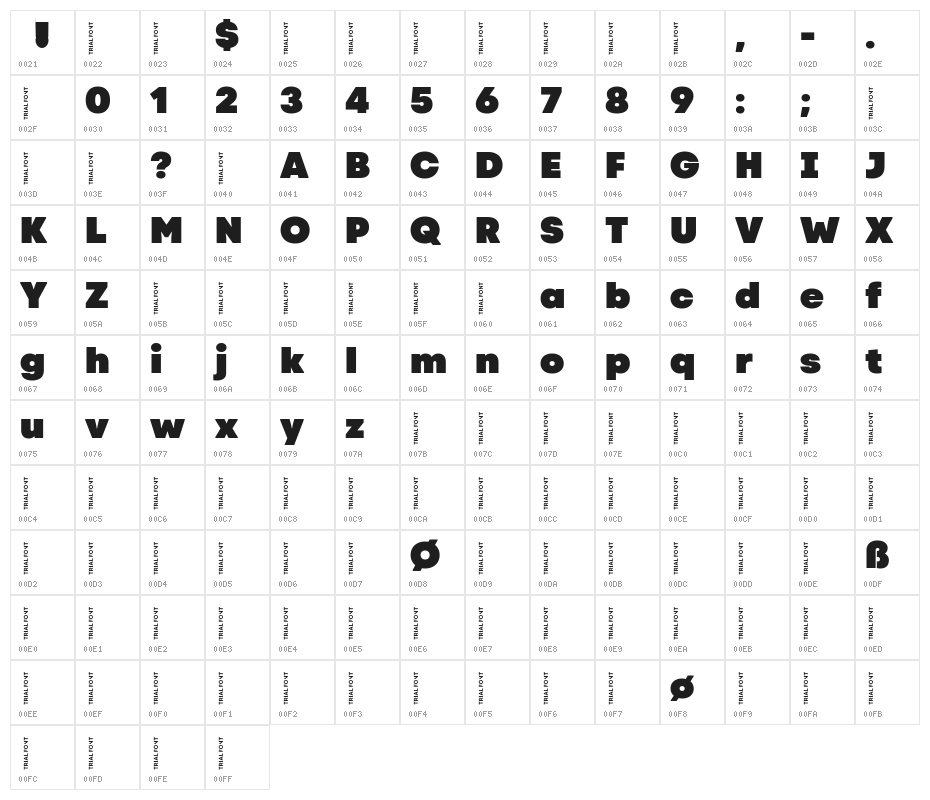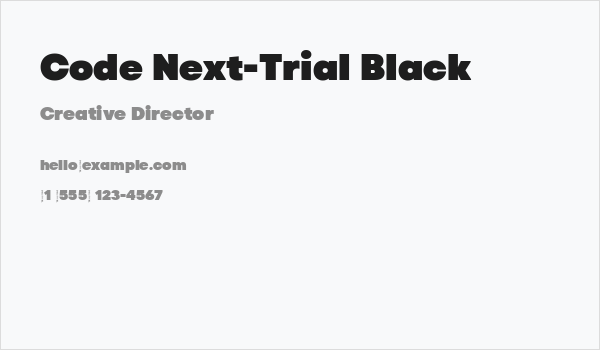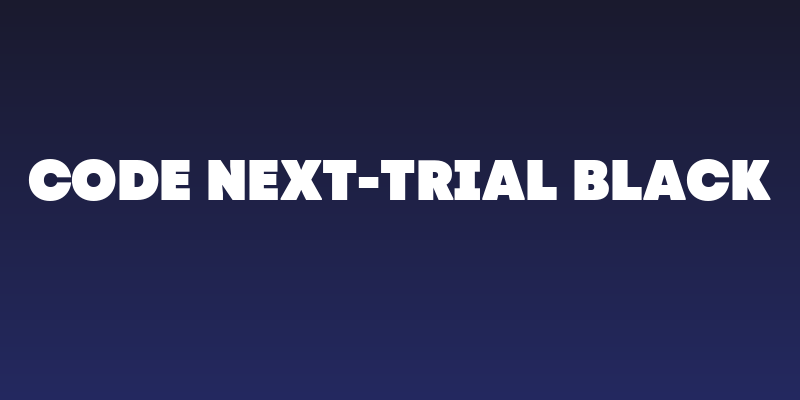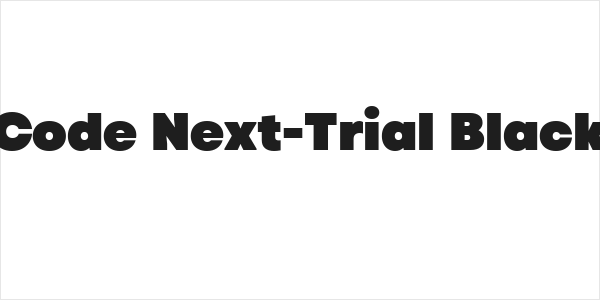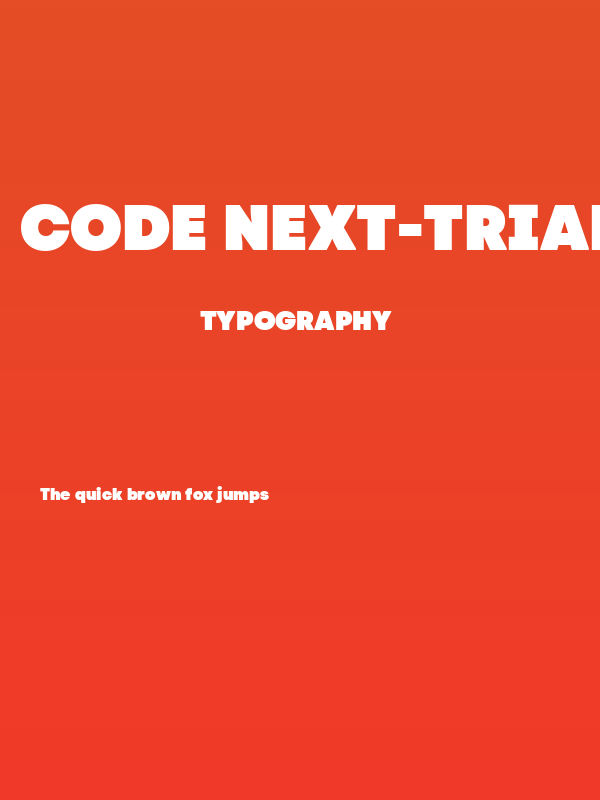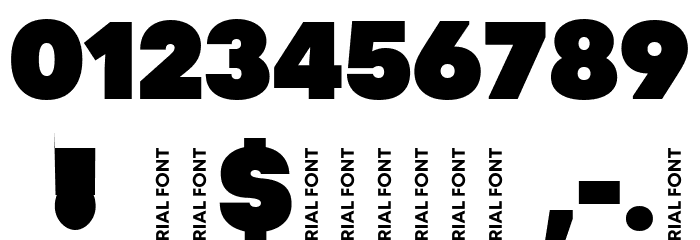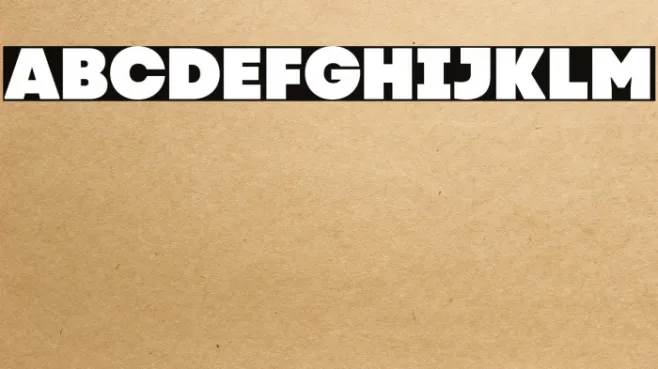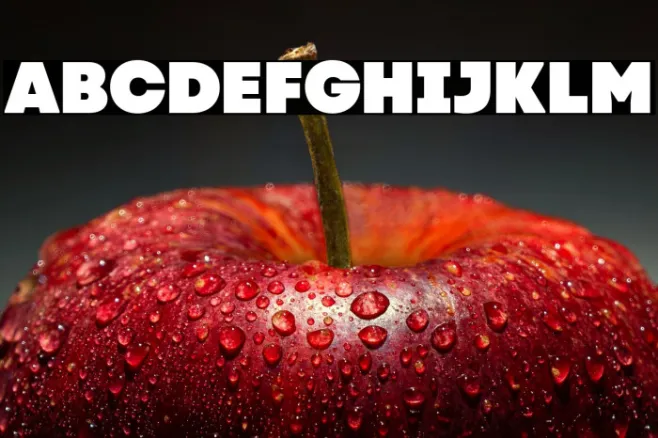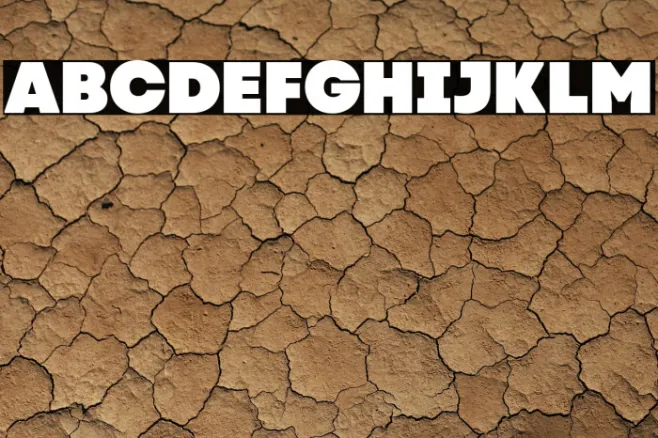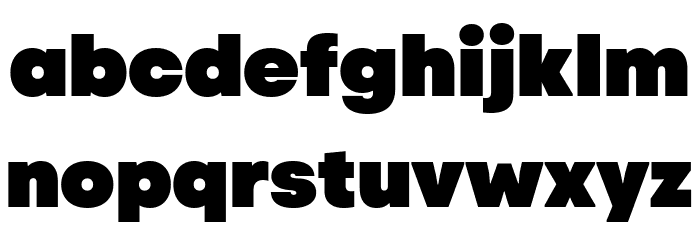
Code Next-Trial Black Font
Code Next-Trial Black Description
This font features bold, thick strokes with a strong presence, making it ideal for impactful designs. The characters are uniformly wide, with a consistent weight that gives a sense of stability and confidence. The uppercase and lowercase letters maintain a similar width, creating a cohesive look across different text sizes. The numbers are equally bold, ensuring visibility and clarity. Special characters like the exclamation mark and dollar sign are designed with the same boldness, ensuring they stand out in any context. The overall style is modern and assertive, suitable for projects that require a strong visual impact.
| Proposed Projects | Ideal for headlines, posters, branding materials, and any project requiring a strong visual impact. |